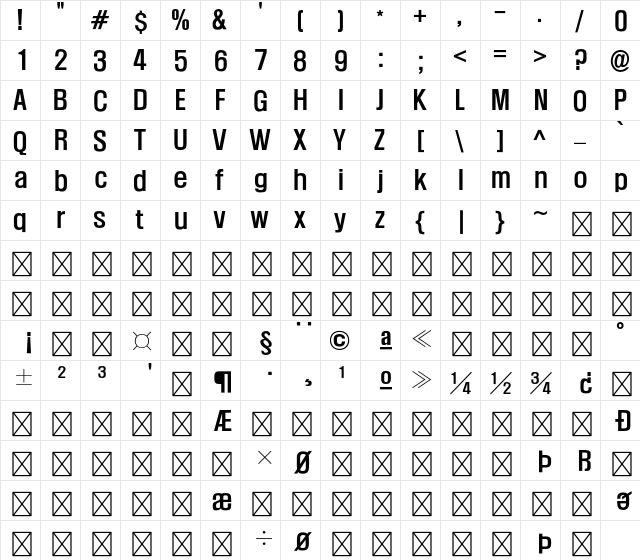
HY Kak Headline Std M Font Preview
HY Kak Headline Std M
Design Context for HY Kak Headline Std Typeface
HY Kak Headline Std offers clean, dependable letterforms without strong stylistic allegiance, making it a practical choice for designers who need flexibility.
Pro Tip: Pair HY Kak Headline Std with a font of contrasting weight or personality to build a more expressive typographic hierarchy.